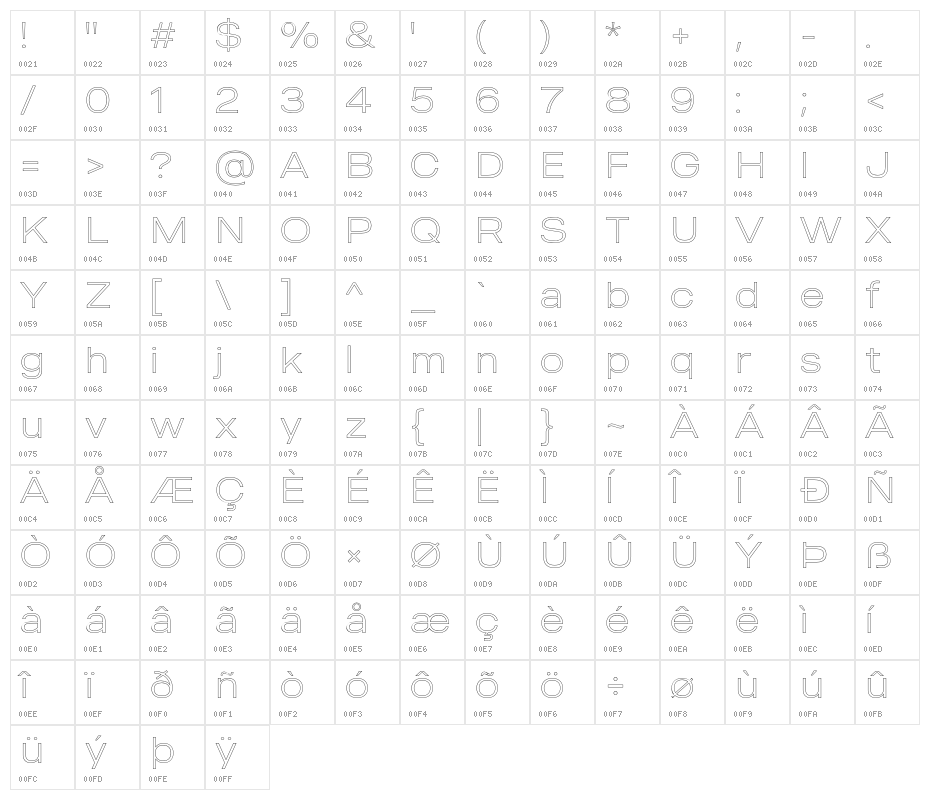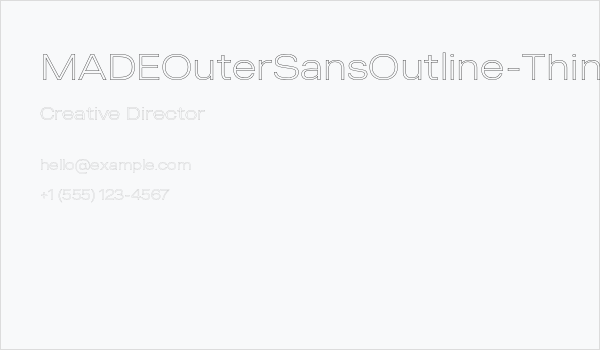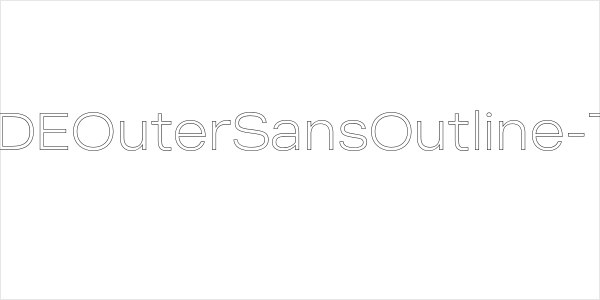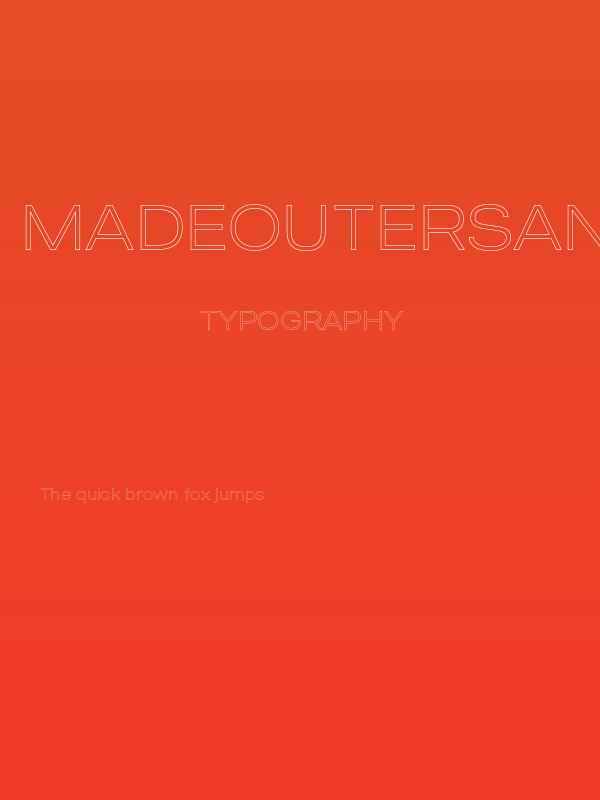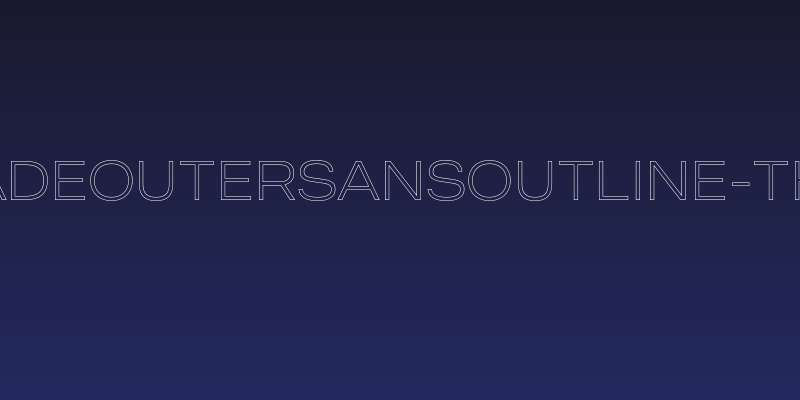
MADEOuterSansOutline-Thin Font
MADEOuterSansOutline-Thin Description
This font features a modern, minimalist design with an outline style that gives it a unique, airy appearance. The characters are constructed with thin lines, creating a sense of openness and elegance. The uppercase and lowercase letters maintain a consistent geometric structure, while the numerals and special characters complement the overall aesthetic. The font's clean lines and lack of embellishments make it versatile for various design applications, offering a contemporary and stylish look.
| Proposed Projects | Ideal for branding, posters, headlines, and digital media where a modern and sleek appearance is desired. |